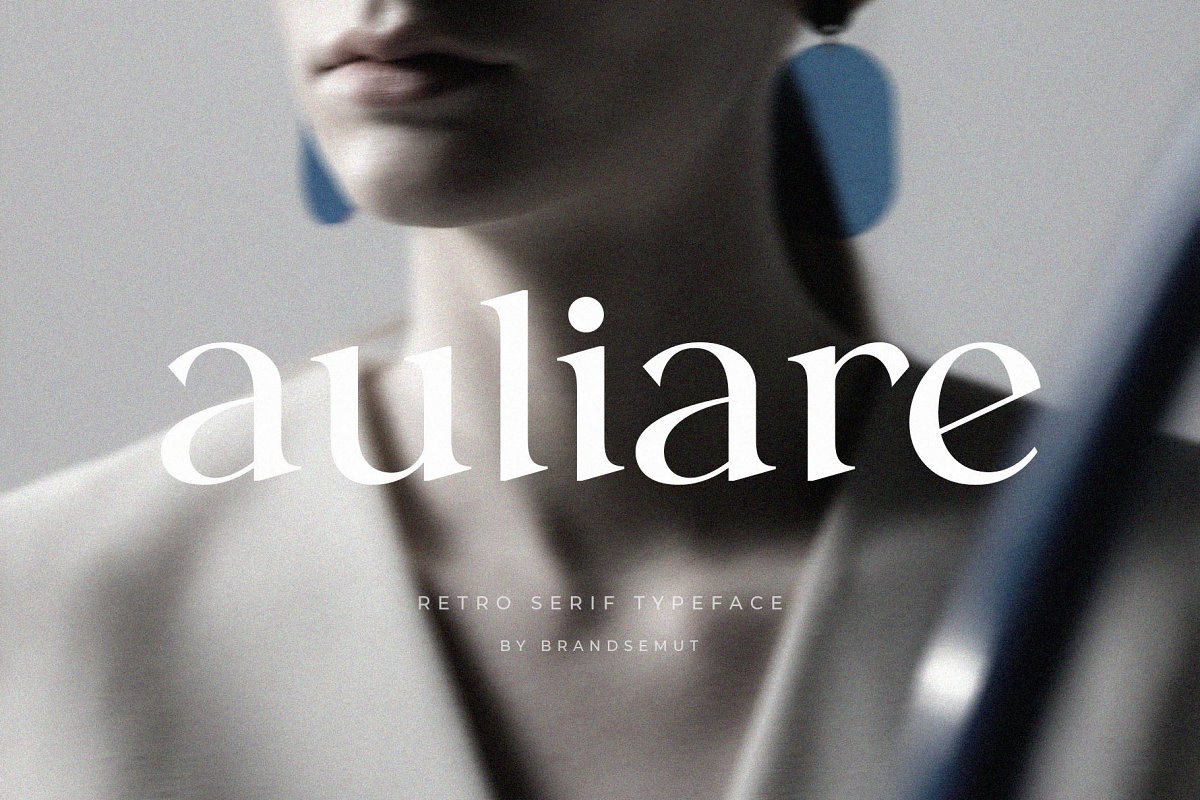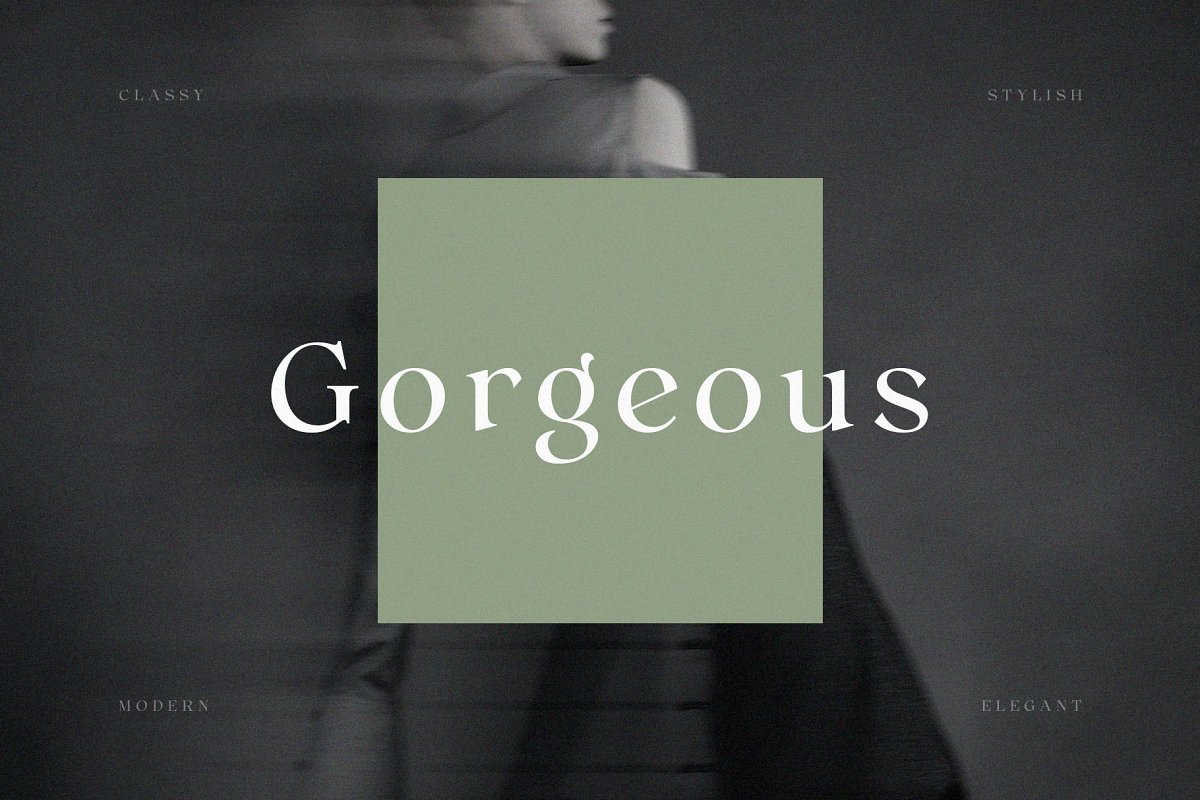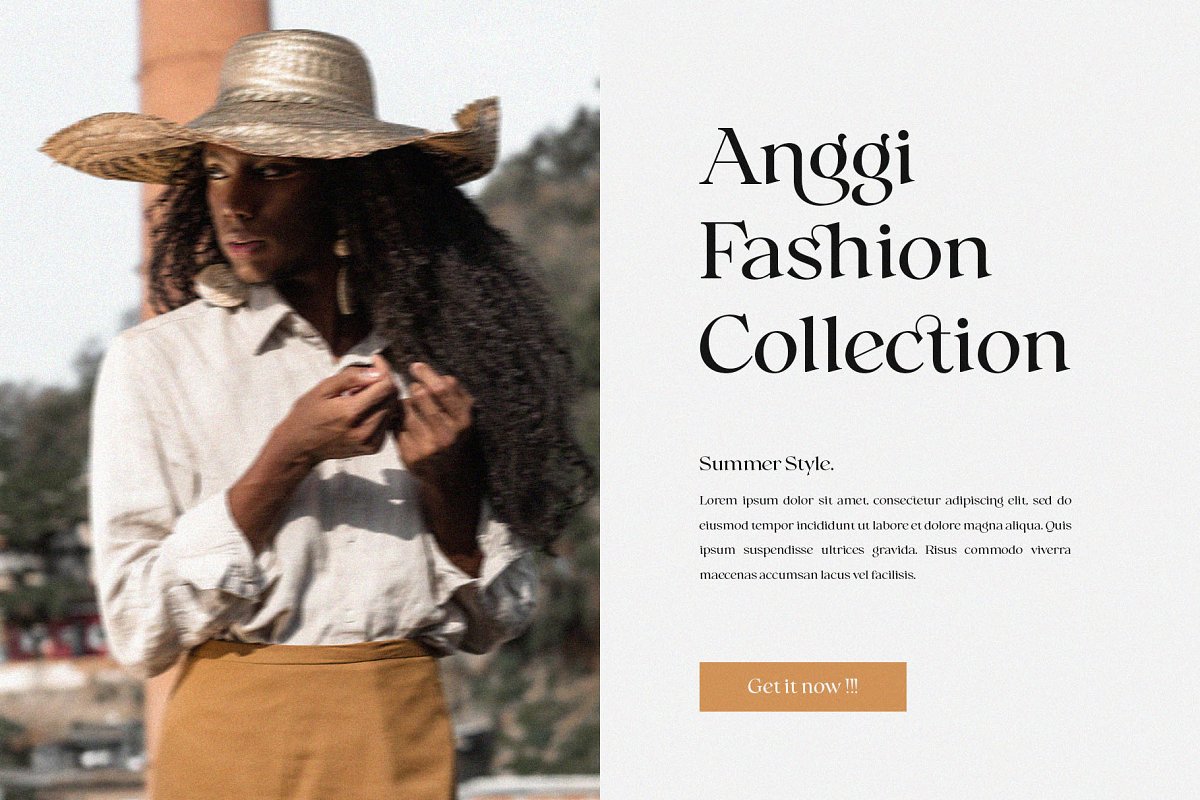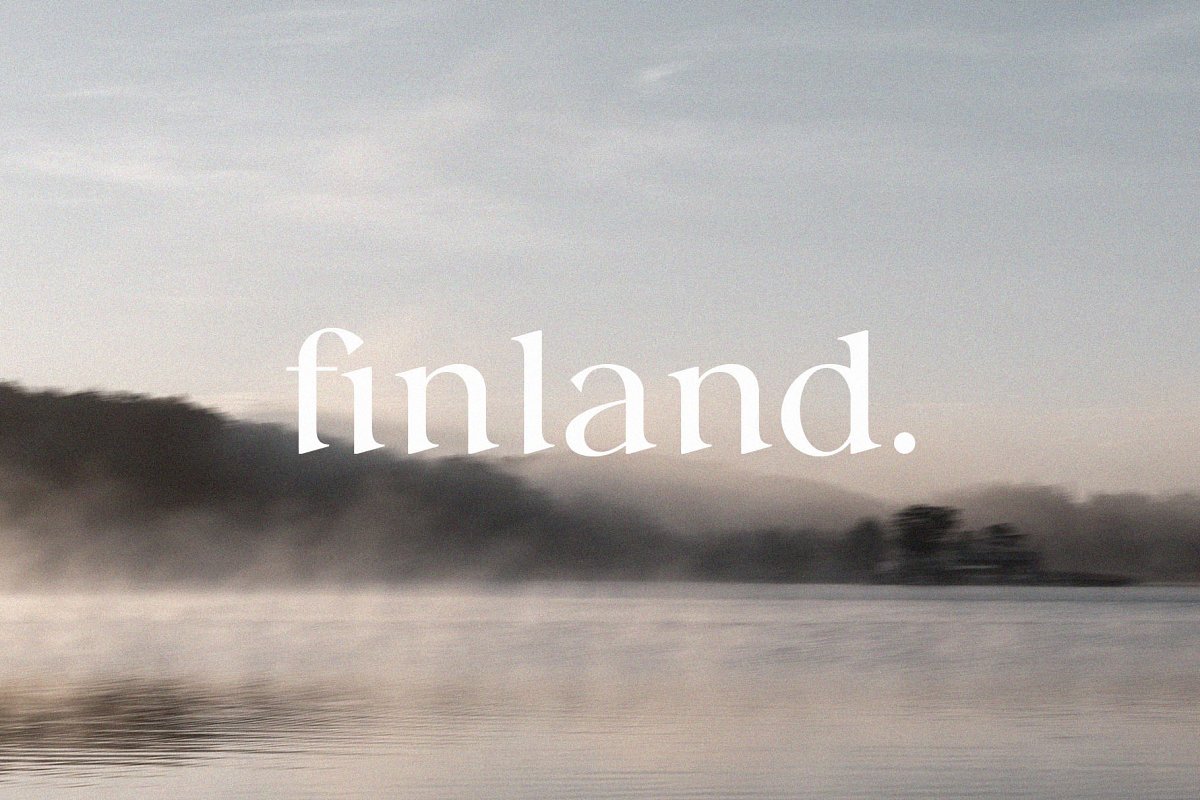
About the Auliare Retro Serif Typeface Font
Introducing Auliare Retro Serif Typeface, Auliare is a retro and classics typeface, best used as a display for headings, logos, branding, magazines, product packaging and invitations, Auliare come with clean lines and smooth curves give any project an extra touch of class, What you get:Auliare OTFAuliare TTFAuliare WOFF2If there’s anything else you are unsure of feel free to pop me a message 🙂 That’s it! Have fun using Auliare Typeface!!!Feel free to follow, like and share